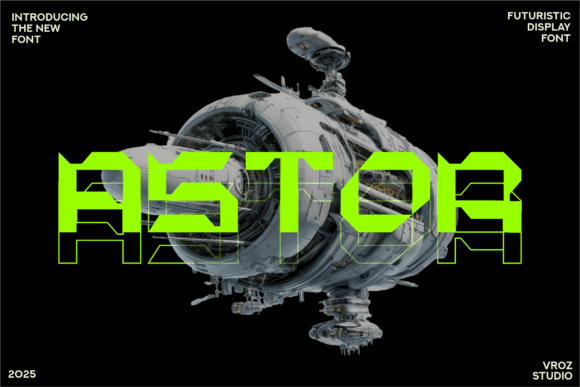
Discover the Futuristic World of Astor Font
I’ll never forget the design project that led me to Astor Font. I was working on a sci-fi themed video game interface, and my client wanted a font that would scream “futuristic” and “high-tech.” I spent hours scouring the internet for the perfect typeface, but nothing seemed quite right. That was until I stumbled upon Astor Font. Its bold, geometric construction and deconstructed style immediately caught my attention. I knew I had found the one.
A Personal Review of Astor Font
- ✨ Extremely versatile: Astor Font is perfect for a wide range of projects, from sci-fi branding to industrial design and cyber-punk themed projects.
- ✅ Highly legible: Despite its futuristic design, Astor Font is surprisingly easy to read, even at small sizes.
- 🔥 Attention-grabbing: The bold, blocky forms and sharp angular cuts make Astor Font a real showstopper.
While Astor Font is an amazing typeface, it’s not without its quirks. For example:
- ⚠️ Limited use in body text: Due to its bold and geometric design, Astor Font may not be the best choice for large blocks of body text.
- 🤔 Glyph limitations: Some users have reported that the font’s glyph set is not as extensive as they would like.
- Experiment with the font’s OpenType features, such as stylistic alternates and glyphs, to add visual interest to your design.
The Design Story Behind Astor Font
Astor Font was designed with the goal of creating a futuristic typeface that would evoke a sense of high-tech grit and industrial precision. The font’s designer drew inspiration from sci-fi movies, video games, and industrial design. The result is a bold and geometric typeface that’s perfect for projects that require a strong visual presence.
| Font Name | Astor Font |
| Author | Vroz Studio |
Q: What is Astor Font best used for?
A: Astor Font is perfect for sci-fi branding, video game interfaces, dark electronic music promotion, industrial design, and cyber-punk themed projects.
Q: Is Astor Font easy to read?
A: Despite its bold and geometric design, Astor Font is surprisingly easy to read, even at small sizes.
Q: Can I use Astor Font for body text?
A: While Astor Font can be used for body text, it may not be the best choice due to its bold and geometric design. It’s better suited for headlines and titles.